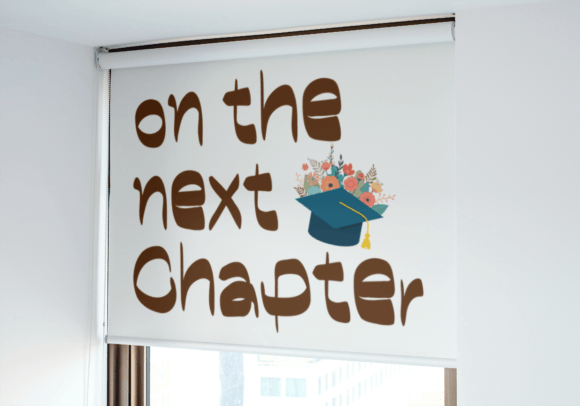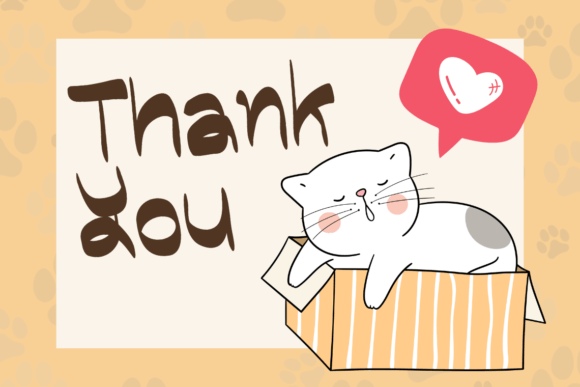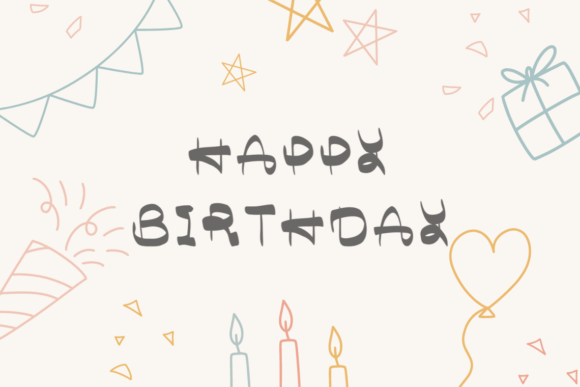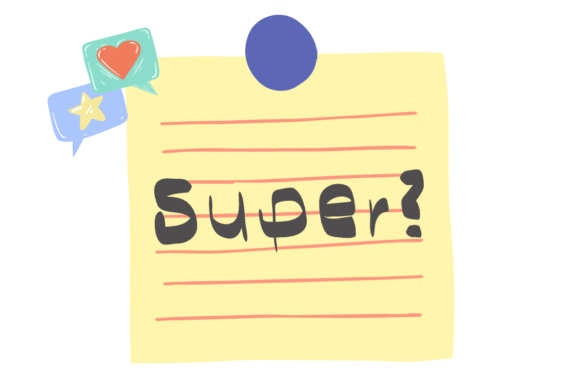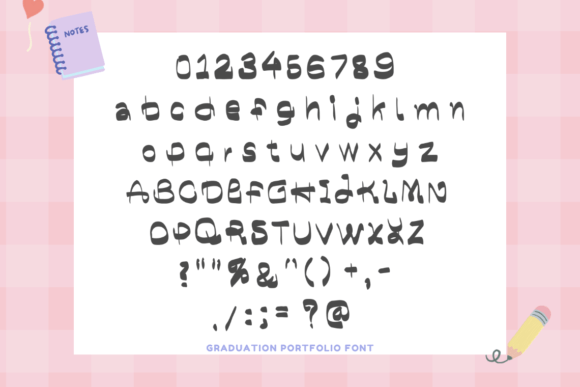
Presenting Graduation Portfolio Font: A Playful Celebration of Academic Achievements
Are you looking for a font that captures the essence of graduation and academic achievements? Look no further! We’re excited to introduce Graduation Portfolio Font, a charming handwritten font that adds a playful touch to your designs. With its school-themed alphabet graphics, this font is perfect for celebrating graduations, creating educational materials, and inspiring a love of learning.
The Perfect Font for Graduation Celebrations
Graduation Portfolio Font is designed to evoke the feeling of nostalgia and accomplishment that comes with graduating from school. Its handwritten style gives your designs a personal and approachable feel, making it perfect for creating graduation certificates, diplomas, and other celebratory materials. Whether you’re a designer, teacher, or parent, this font is sure to inspire your creativity and add a touch of whimsy to your projects.
Key Features of Graduation Portfolio Font
- Handwritten style: Graduation Portfolio Font features a beautiful, handwritten style that’s perfect for creating personal and heartfelt designs.
- School-themed alphabet graphics: The font includes a range of school-themed alphabet graphics, including graduation caps, diplomas, and apples, adding a playful touch to your designs.
- Playful and approachable: The font’s playful and approachable feel makes it perfect for creating educational materials, such as worksheets, activity sheets, and classroom decorations.
- Easy to read: Despite its playful style, Graduation Portfolio Font is easy to read, making it perfect for creating materials that need to be understood by a wide range of audiences.
Uses for Graduation Portfolio Font
Graduation Portfolio Font is a versatile font that can be used in a variety of ways. Here are some ideas to get you started:
- Graduation certificates and diplomas: Create personalized graduation certificates and diplomas that feature the graduate’s name and achievements.
- Educational materials: Use Graduation Portfolio Font to create worksheets, activity sheets, and classroom decorations that add a playful touch to learning.
- Paper notes and stationery: Create custom paper notes and stationery that feature the font’s school-themed graphics.
- Digital designs: Use Graduation Portfolio Font to create digital designs, such as social media graphics, blog posts, and email newsletters, that celebrate academic achievements.
Graduation Portfolio Font is a charming and playful font that’s perfect for celebrating graduations and academic achievements. With its handwritten style and school-themed alphabet graphics, this font adds a touch of whimsy to your designs. Whether you’re a designer, teacher, or parent, Graduation Portfolio Font is sure to inspire your creativity and help you create materials that celebrate the journey of learning and accomplishment.